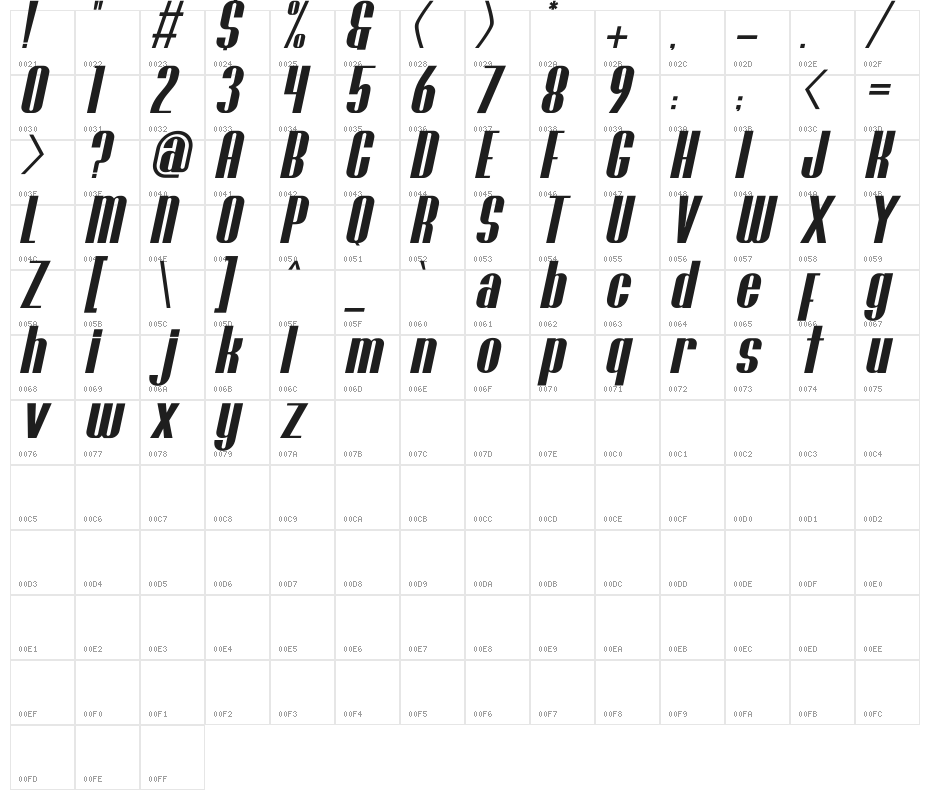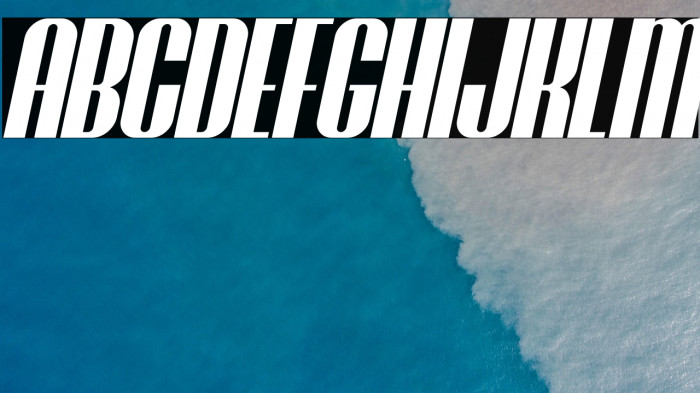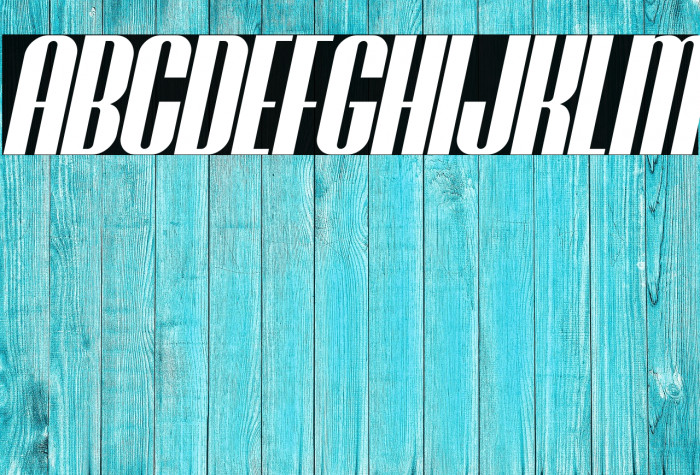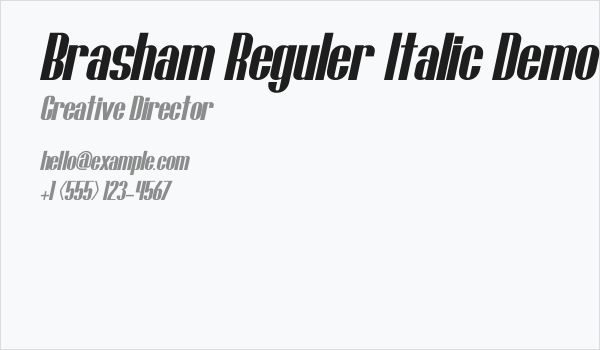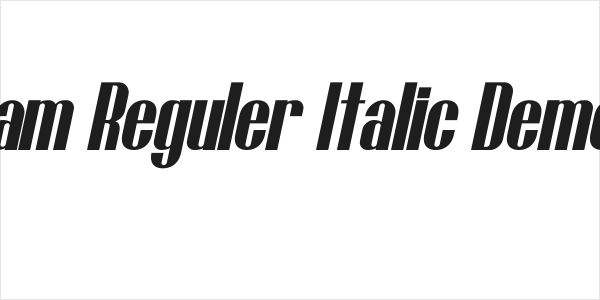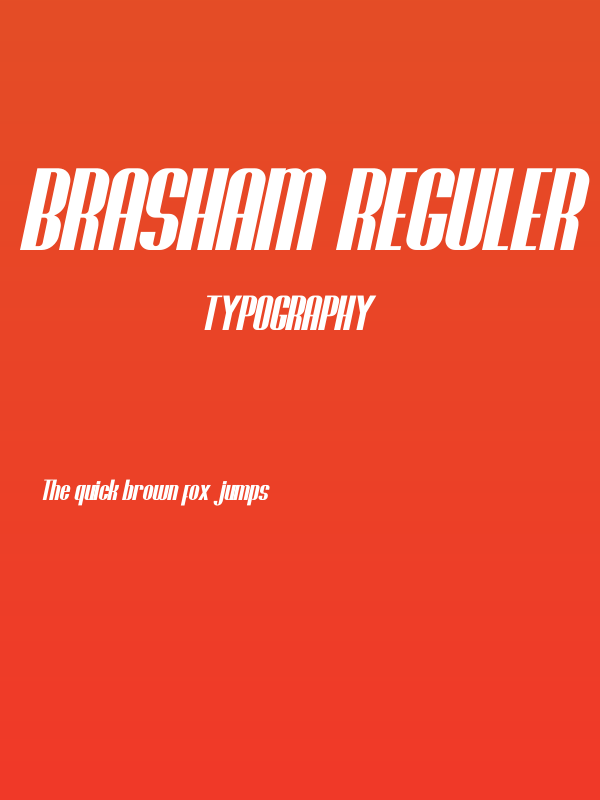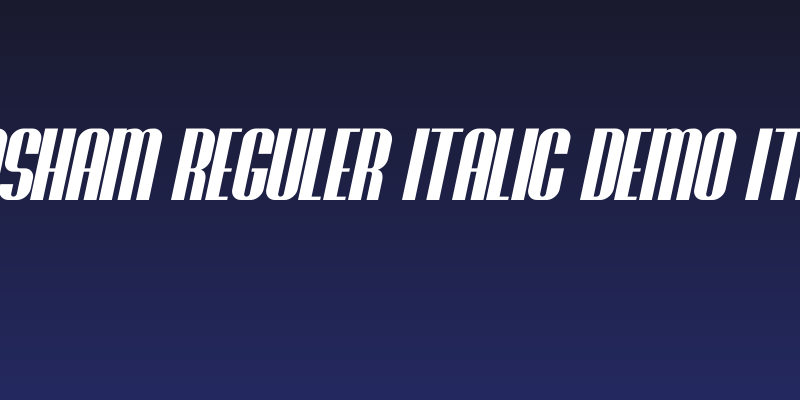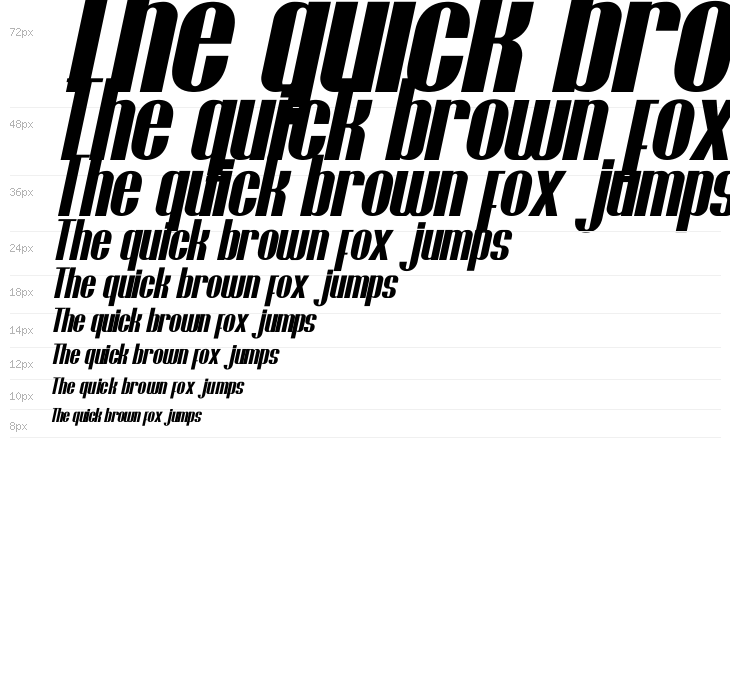
Brasham Reguler Italic Demo Italic Font
Brasham Reguler Italic Demo Italic Description
This font features a bold and dynamic style with a strong italic slant, giving it a sense of motion and energy. The characters are tall and narrow, creating a condensed appearance that is both modern and assertive. The strokes are thick and consistent, providing high contrast and a striking visual impact. The uppercase and lowercase letters maintain a cohesive design, while the numerals and special characters integrate seamlessly, offering versatility for various design needs.
| Proposed Projects | Ideal for sports branding, dynamic posters, modern advertising, and impactful headlines. |